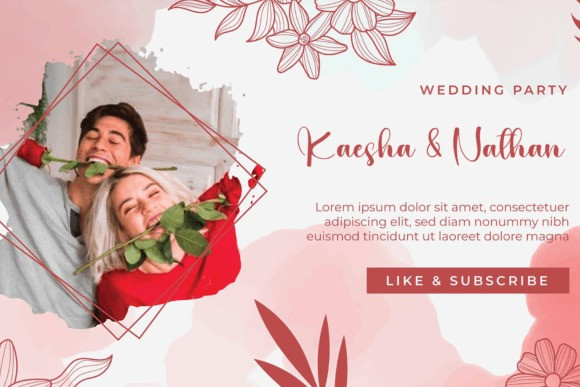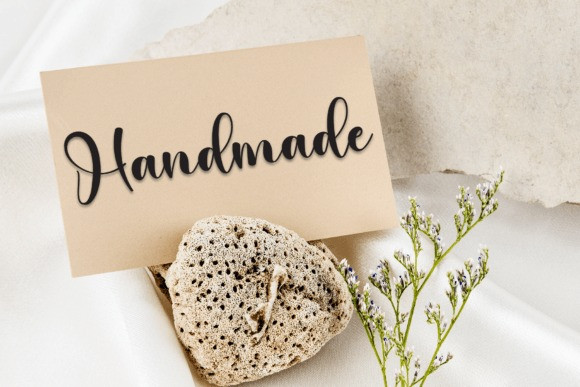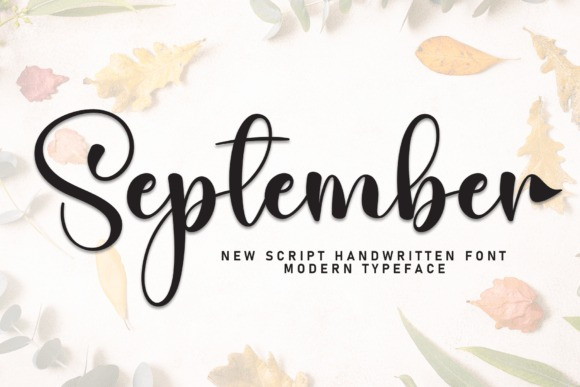
September Script Font
September Script Font is a charming handwritten font that has a casual, friendly style. Its smooth, flowing letters give a personal touch, making it great for notes, invitations, and anything that needs a warm, creative vibe!